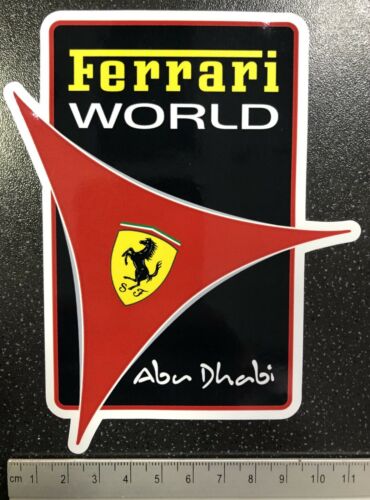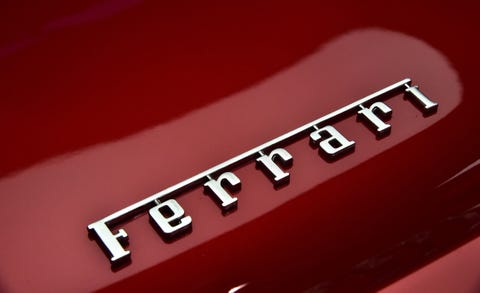
Ferrari Font Generator
It was based on the Ferrari logo which an Italian luxury sports car brand.
Ferrari font generator. A font called Ferro Rosso by Michael Hagemann is very similar to the slab serif for the stylized “Ferrari”. Generate cool and amazing fonts by using ferrari font generator. This brand was founded by Mr Enzo Ferrari on 13 September 1939.
If you do not want to download and install the font but just like to create simple text logos using Ferrari Font, just use the text generator below. Create text logos with Ferrari Font. Ferrari Font is a logo font that has featuring a thick and bold texture.
Ferrari font here refers to the font used in the logo of the auto brand Ferrari, which is an Italian sports car manufacturer founded by Enzo Ferrari in 1929. Submit a font Tools.